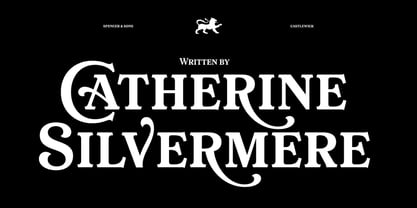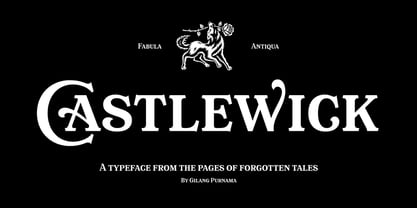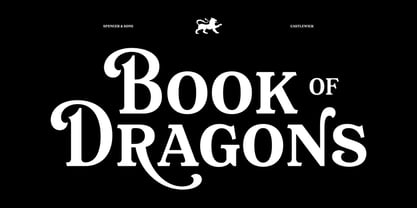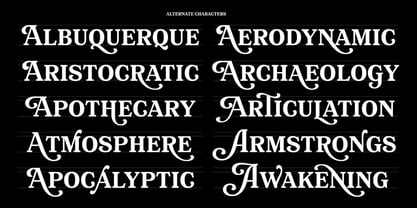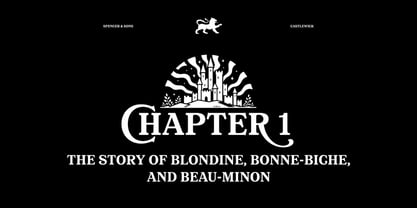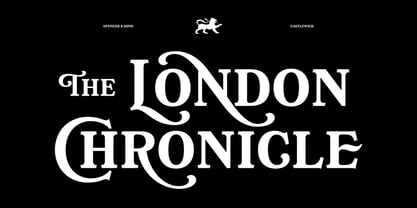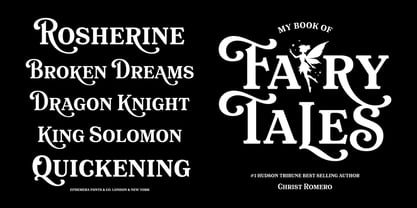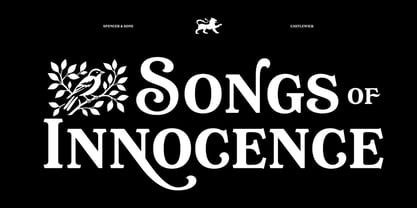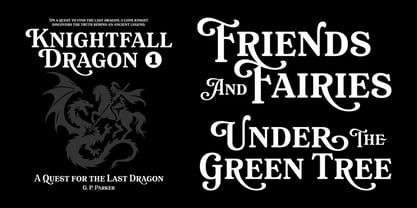
Castlewick
Castlewick is a decorative serif typeface inspired by the charm of old storybooks, classic fairy tales, and vintage fantasy covers. Featuring bold letterforms, elegant swashes, and over 200 alternate characters, Castlewick gives you the freedom to create magical titles, dramatic logos, and timeless display compositions. The font is also PUA encoded, making its special characters easy to access in various design software. Perfect for book covers, posters, fantasy branding, packaging, badges, editorial layouts, and designs that need a nostalgic storybook atmosphere.